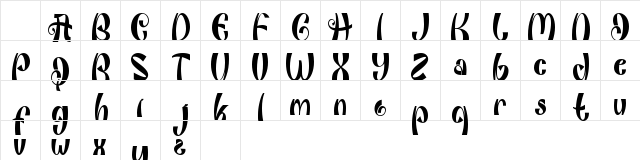
Complete Christmas With Love Demo Regular glyph index. Displaying only characters natively supported by Christmas With Love Demo Regular font.
Christmas With Love Demo is a composed and adaptable typeface that performs quietly and consistently across a wide range of design contexts.